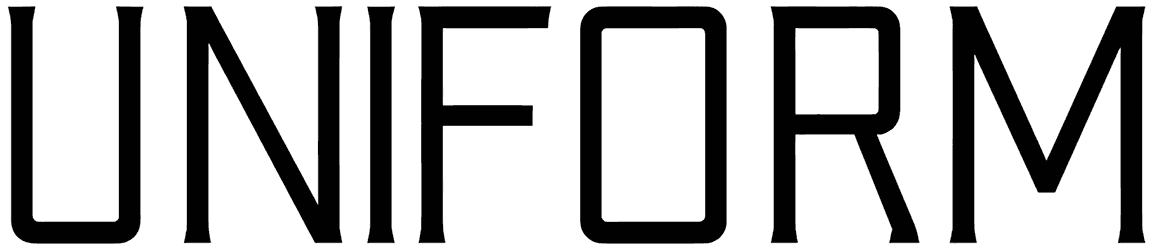
Uniform Font
Uniform is a cute sans serif font that due to its whimsical style is really ideal for creating greeting cards, business cards, posters, flyers, and book covers. Although it doesn’t support lowercase letters, it can add a…
Uniform is a cute sans serif font that due to its whimsical style is really ideal for creating greeting cards, business cards, posters, flyers, and book covers. Although it doesn’t support lowercase letters, it can add a sense of modernity, futuristic, simplicity, or dynamic to your artwork and elevates them to a higher level.
This golden point must be mentioned that all its characters are designed in three different weights, so it drastically widens your selection range.
Uniform is a typeface inspired by sport and industry, designed to allow you a balance of versatility and structure in your designs.